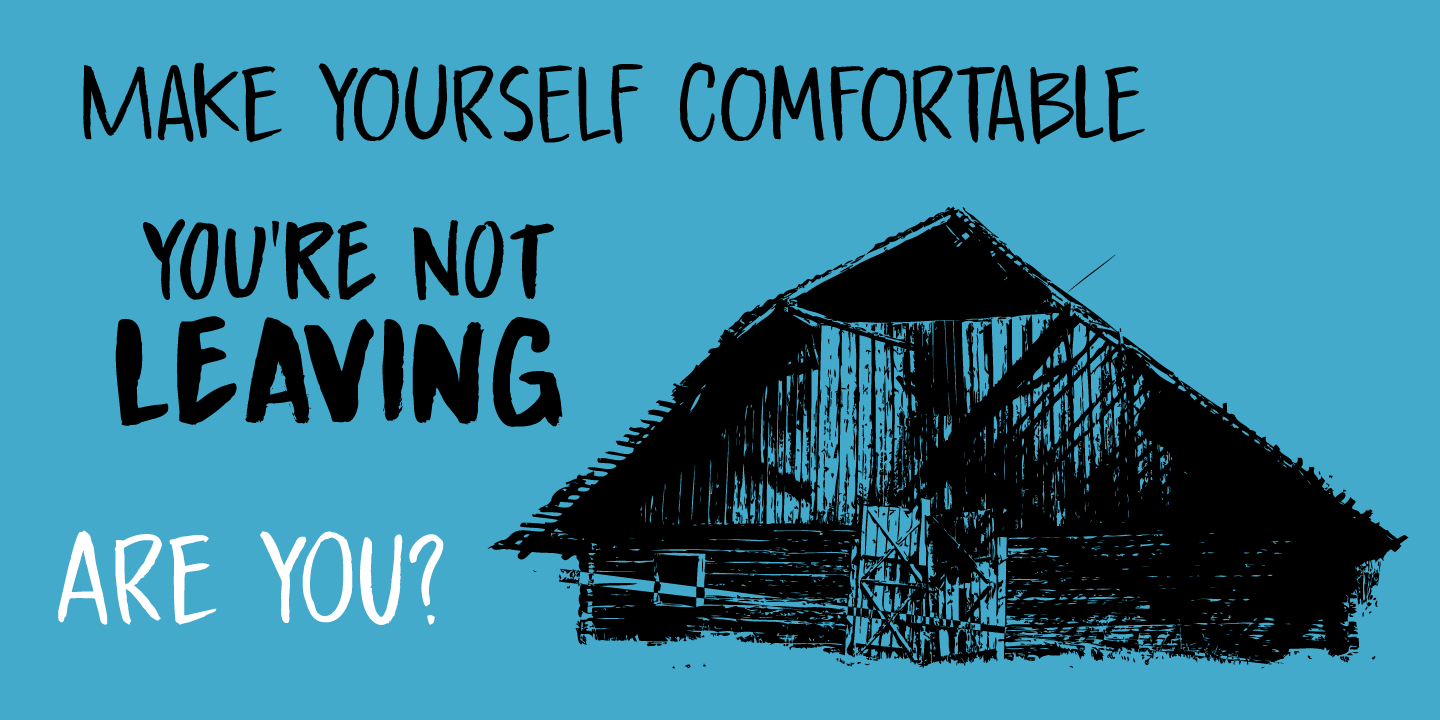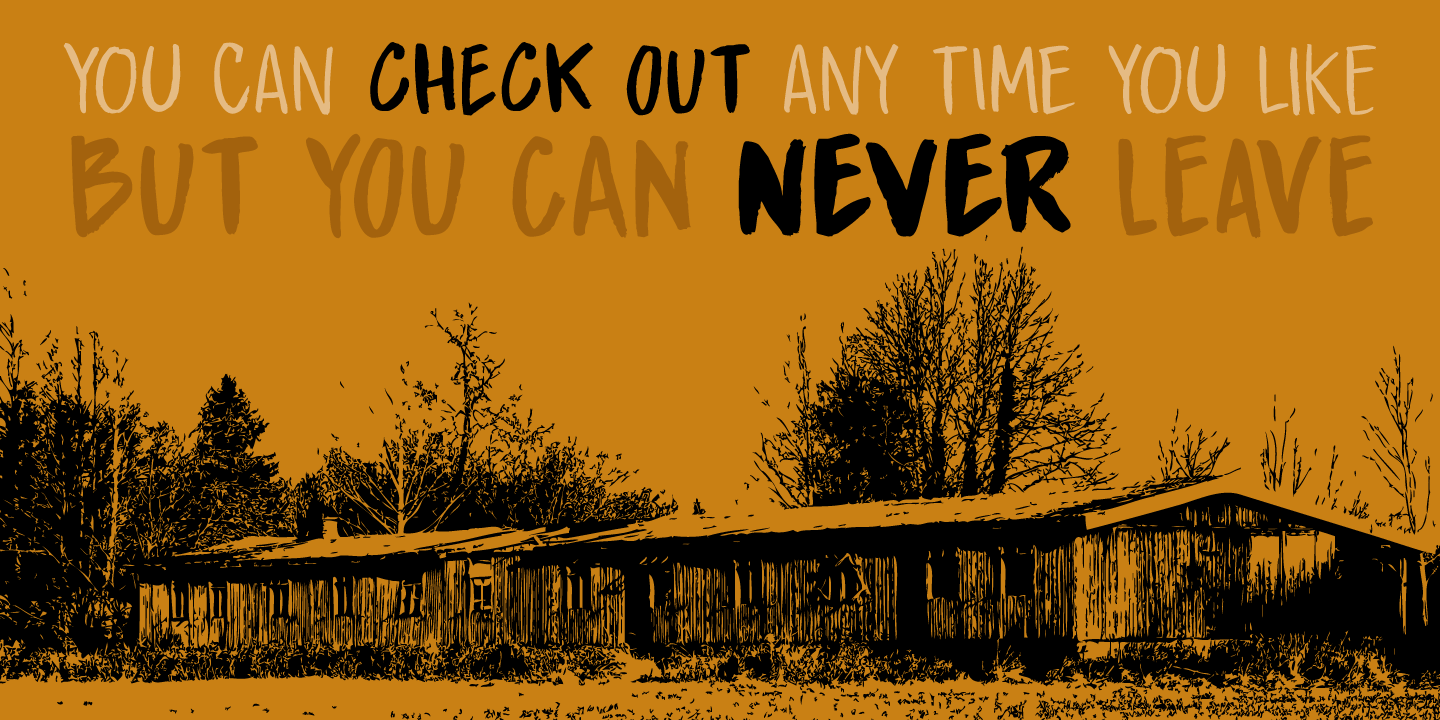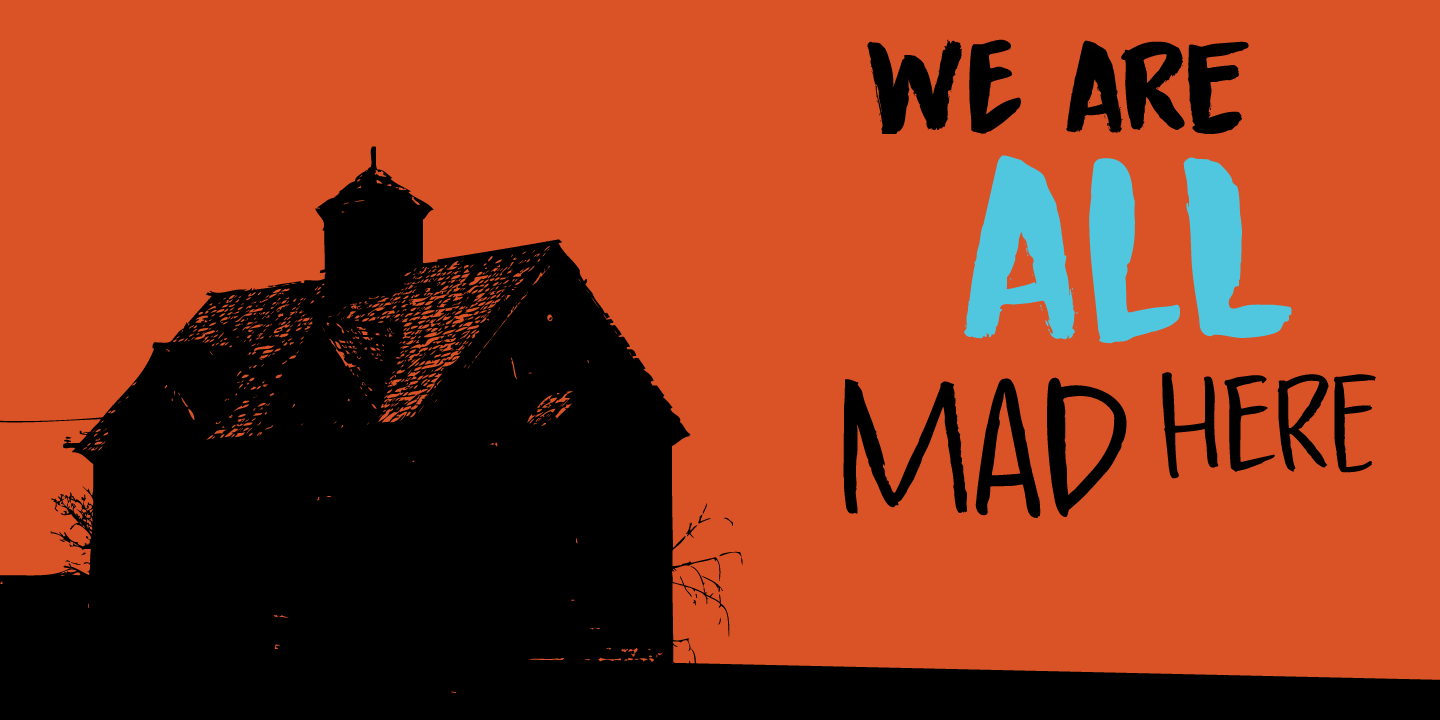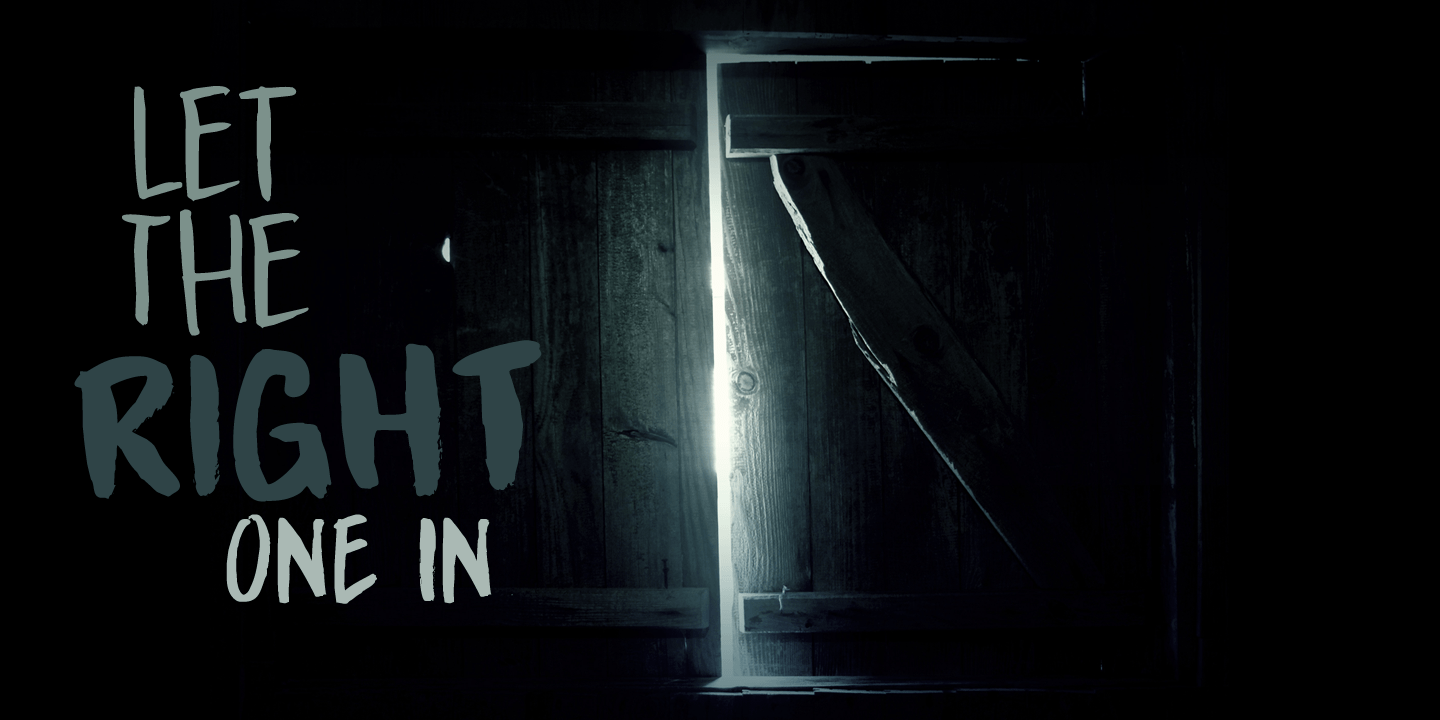
I have never stayed at a boarding house myself, but I\’ve heard some horror stories. When I have finished painting the three fonts (using Chinese ink and a small brush), I didn\’t have to think long for a name. Boarding House family consists of three distinct…